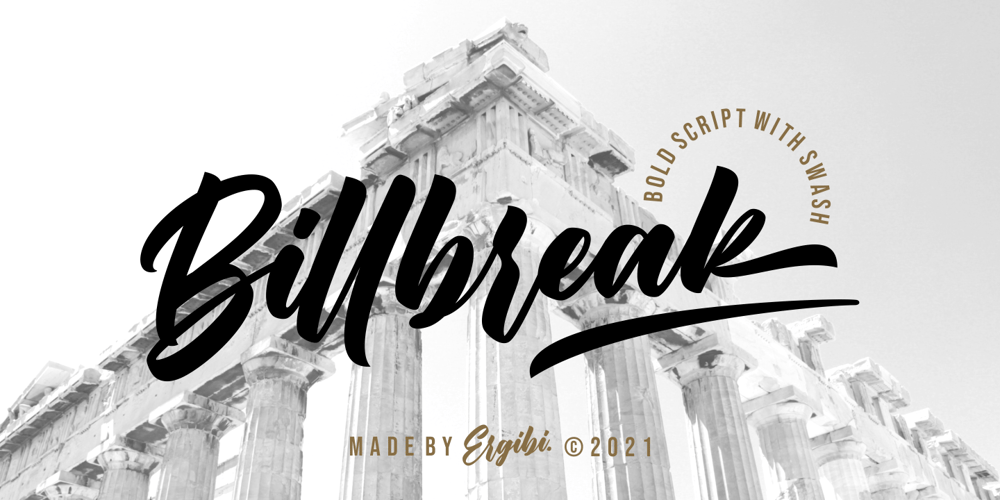
Billbreak Font Family was designed by Riyadh Rahman and published by Ergibi Studio. Billbreak contains 1 styles and family package options. Billbreak is a bold script font inspired by urban fashion. This font is great for your next creative project such as logos, badge, apparel, product packaging, headline, T-shirt/apparel, Poster, or anything which needs a Calligraphy.Billbreak comes with uppercase, lowercase, numerals, punctuations and so many variations on each character include opentype alternates, and common ligatures to let you customize your designs.If you have any questions, don’t hesitate to contact usErgibi Studio